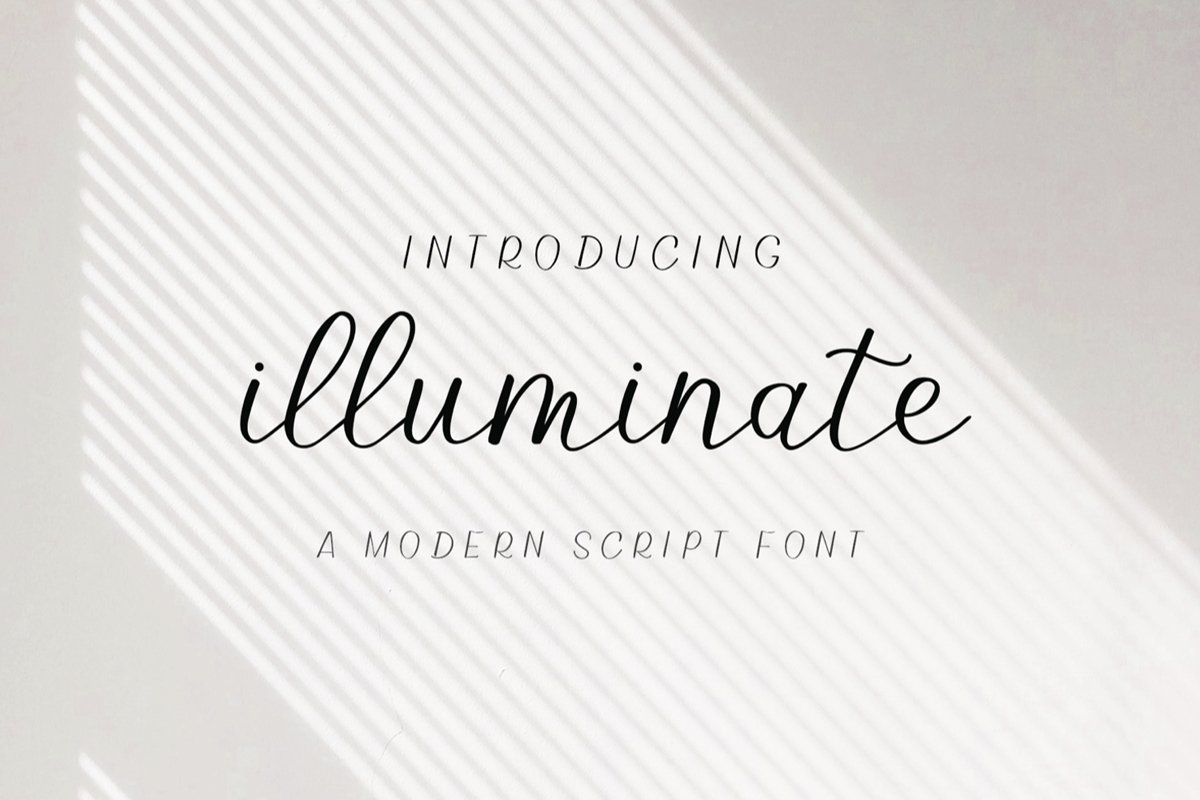
Illuminate - An Elegant and Modern Script Font
Illuminate is a lovely, full-featured, modern script font with tons of alternate characters, unique ligatures and beginning and ending swashes!This modern script font with swashes is perfect for creatives, designers, entrepreneurs, brides, DIY crafters and letterers, too! It works great for creating beautiful and elegant logos, branding material, Instagrammable quotes for your social media accounts, crafting and wedding stationery such as wedding invitations, save the dates, menus, name cards, birthday and thank you cards and so much more!It has multilingual support and comes with over 100 ligatures and fun alternates to really give it that handwritten font look. This elegant script font also includes an added *bonus* of adding beginning and end swashes to every word by simply typing “~word~”! Each character was hand-written, intricately cleaned, and crafted with love and attention to detail.
Beautiful font
I'm in love with this font - it's so pretty and elegant! I love how you can add beginning and ending swashes to give it a little something extra. I can't wait to use it on everything!